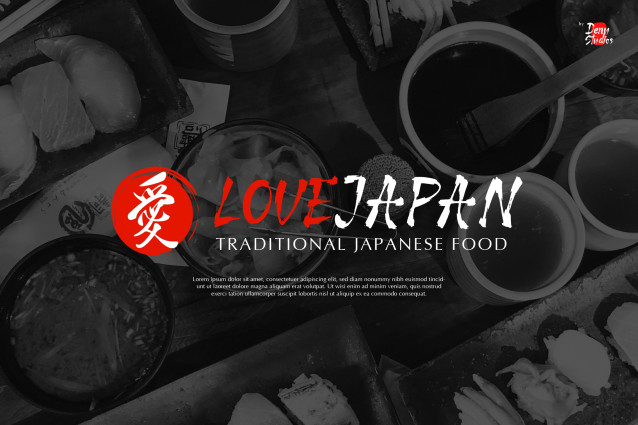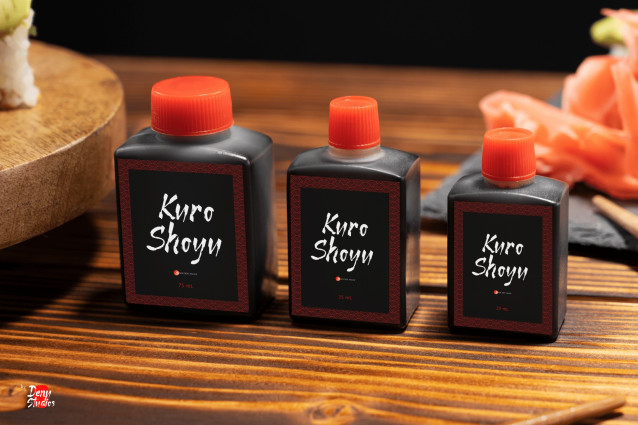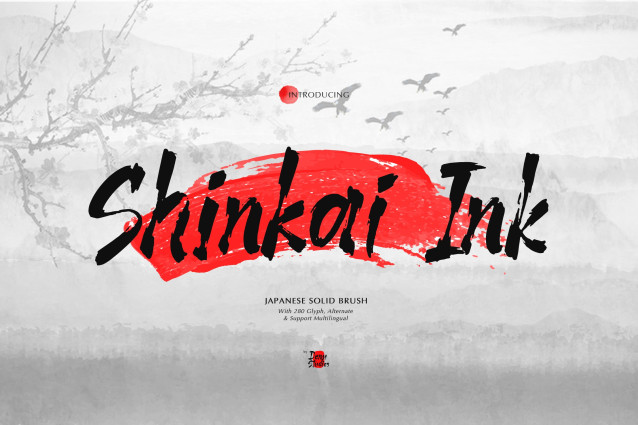
Shinkai Ink Font
Shinkai Ink | Japanese Solid Brush, from Denustudios, suitable for any projects such as: logos, branding projects, homeware designs, product packaging, mugs, quotes, posters, shopping bags, t-shirts, book covers, name card, invitation cards, greeting cards, label, photography, watermark, special events, and all your other lovely projects that need a Japanese Solid Brush taste.